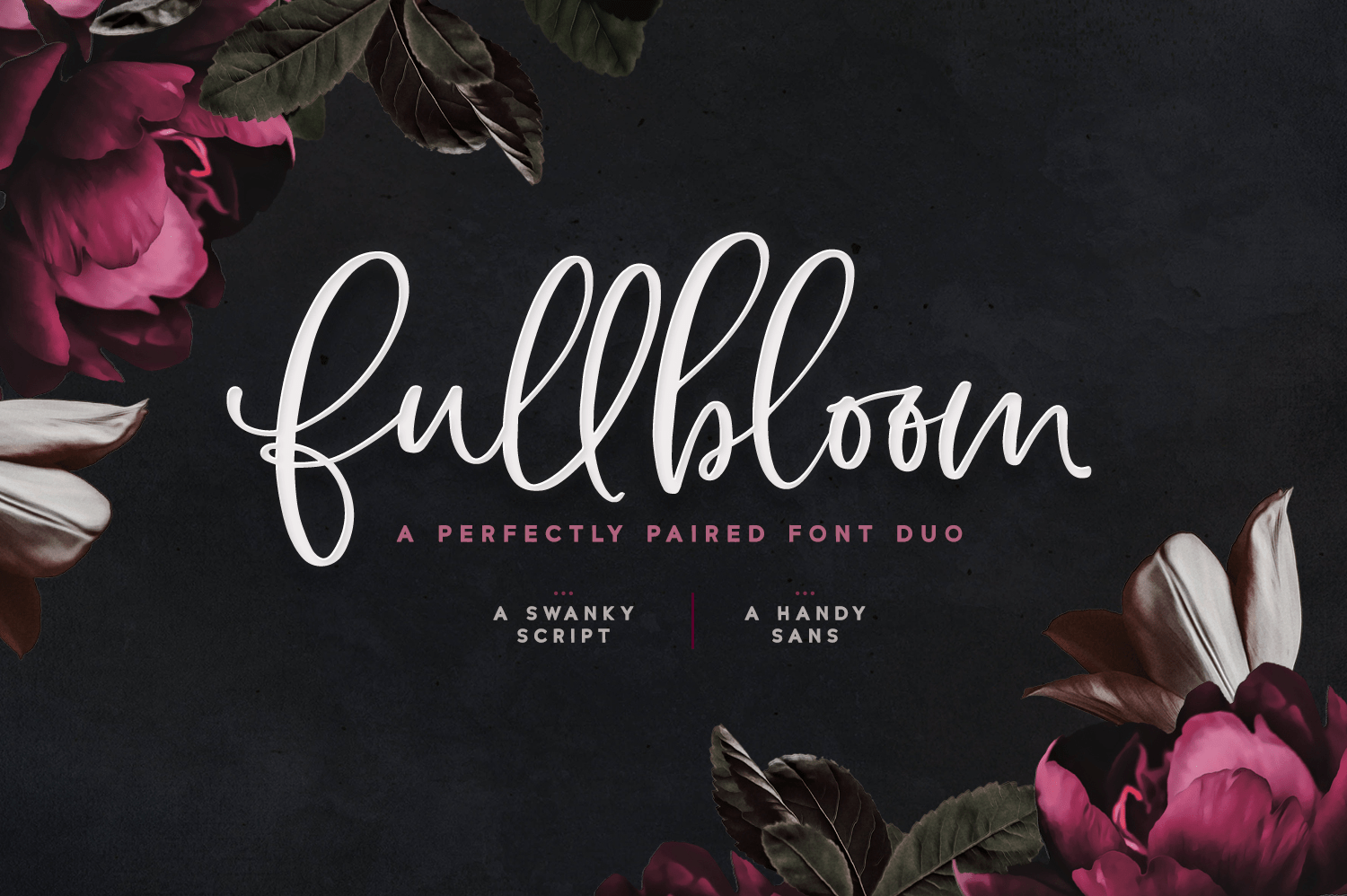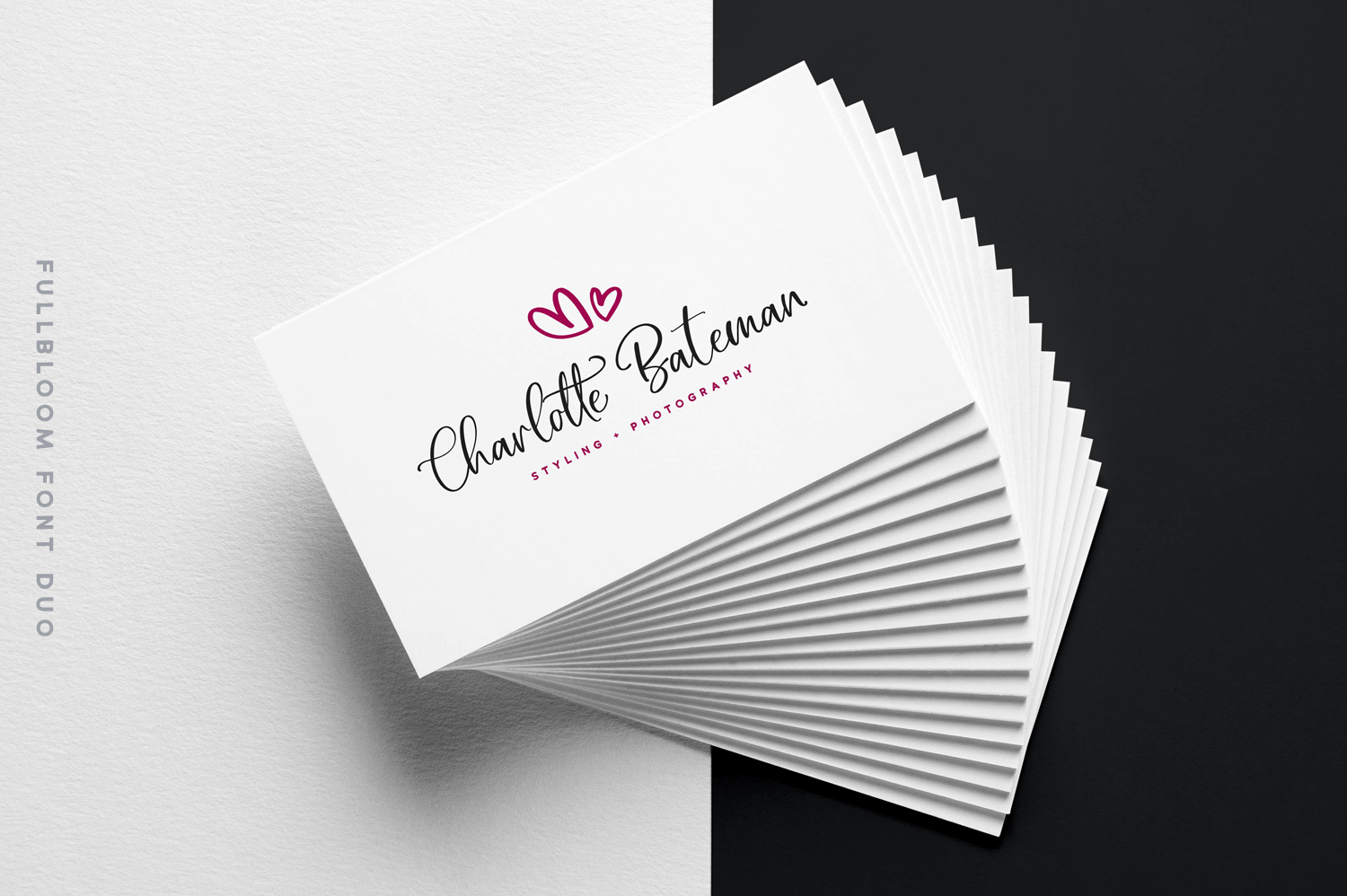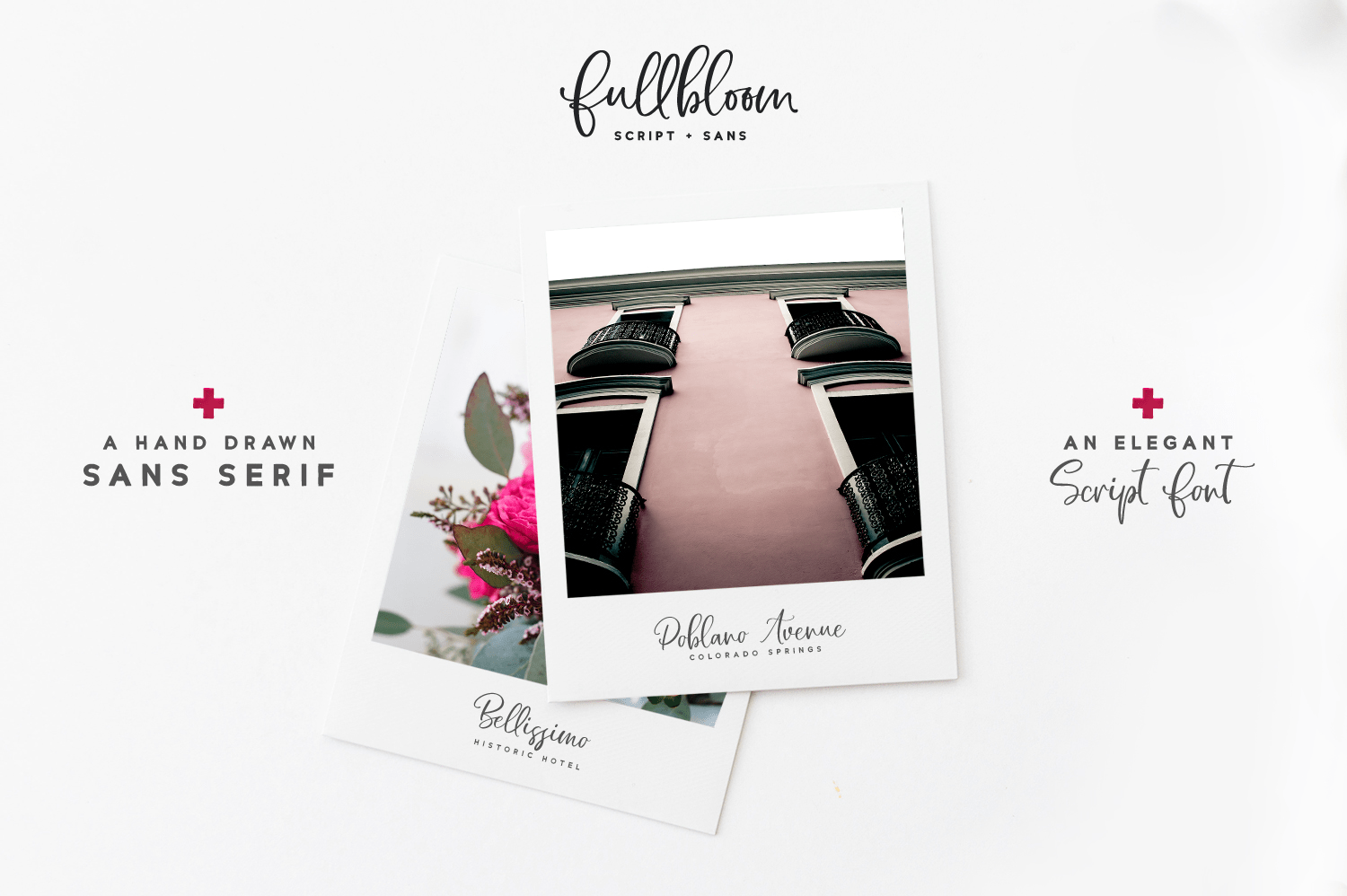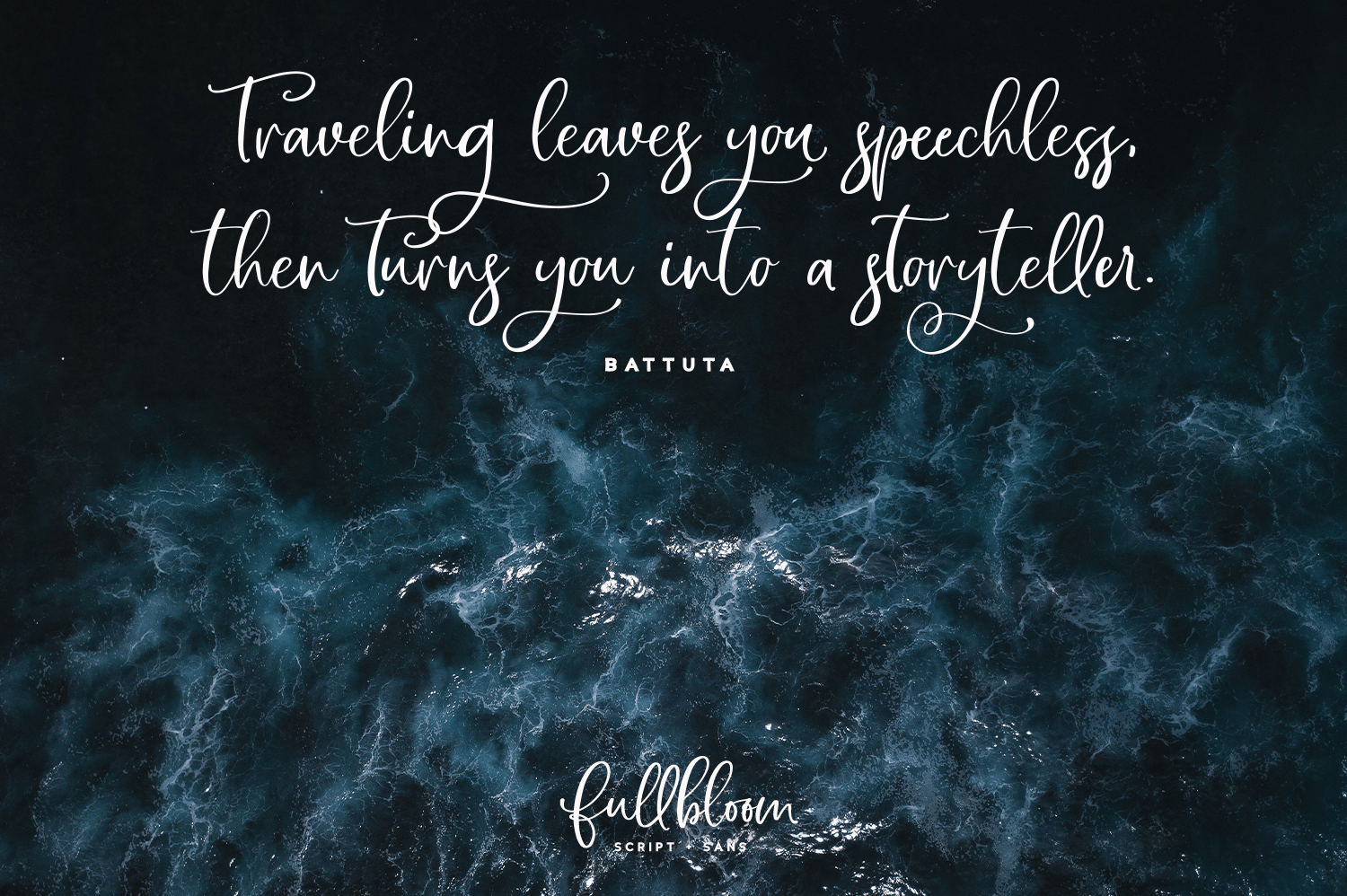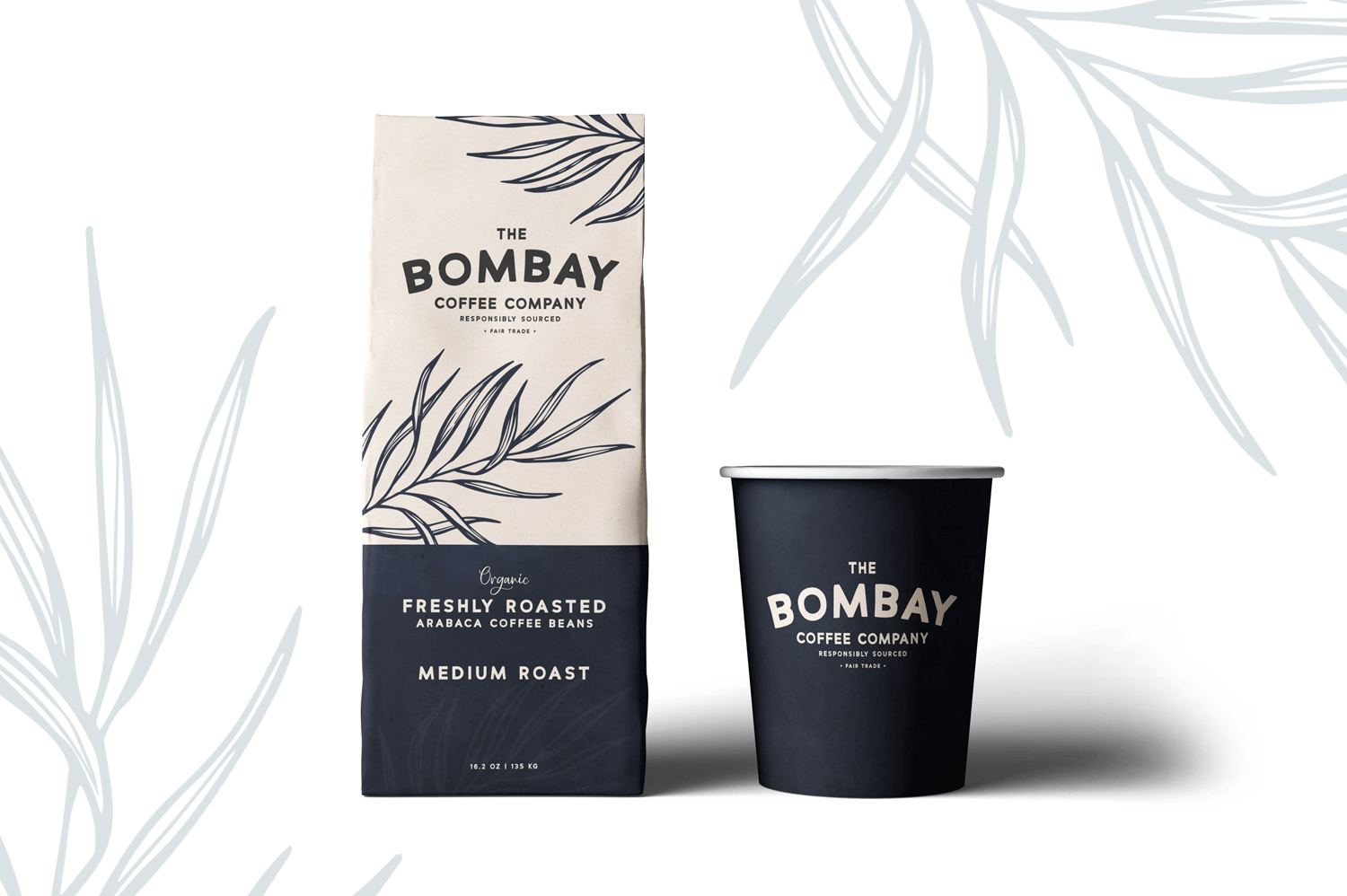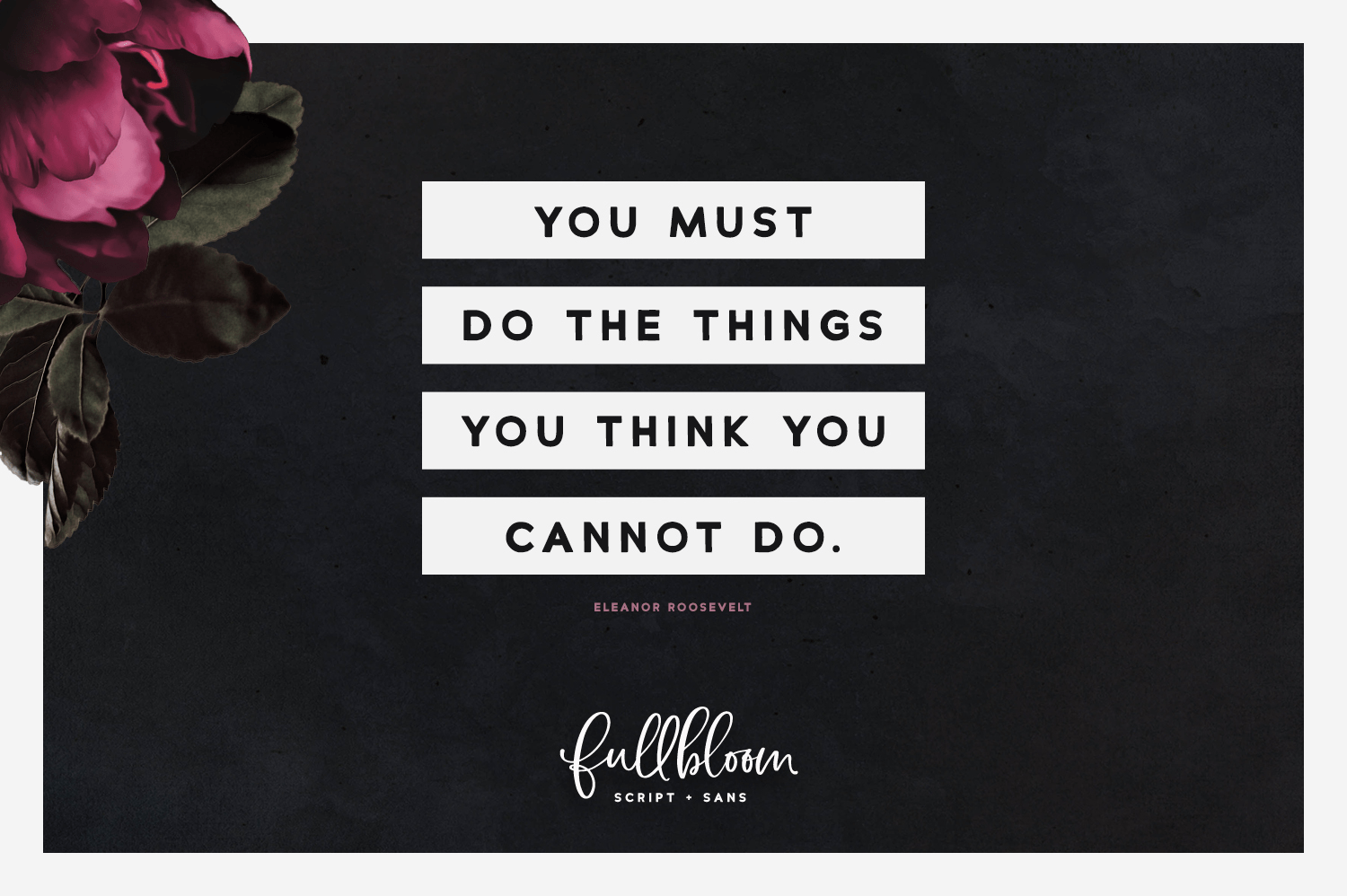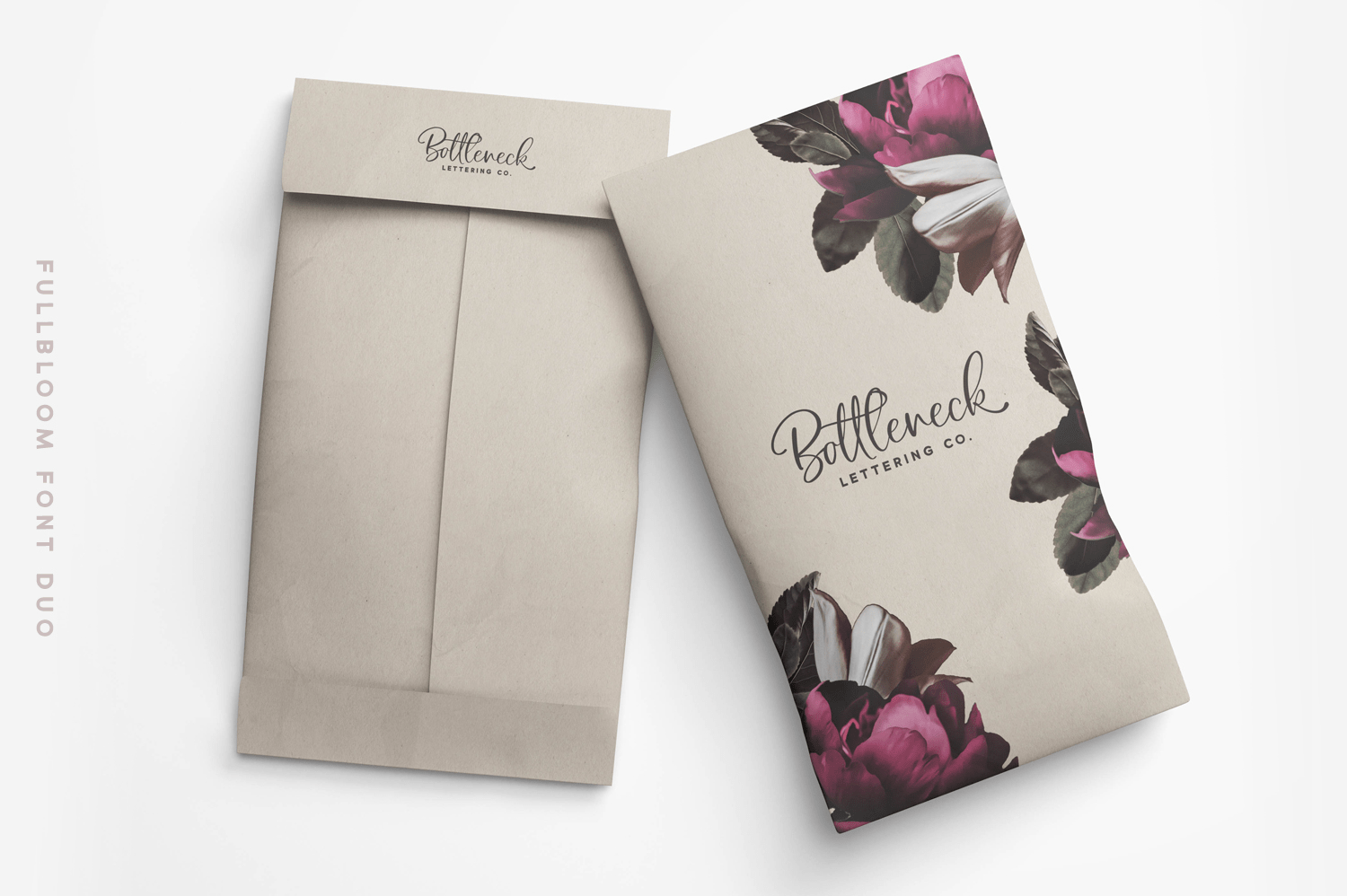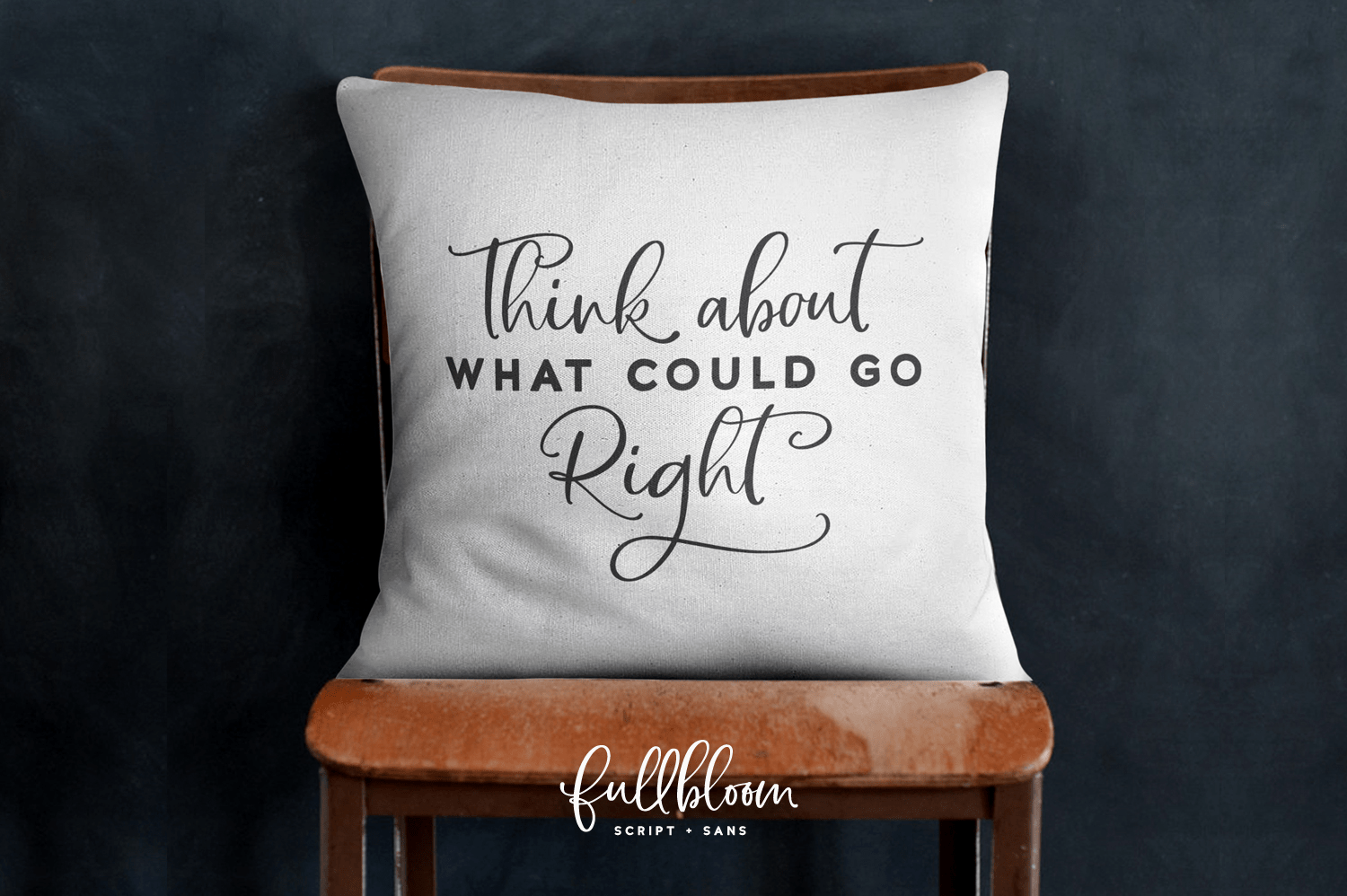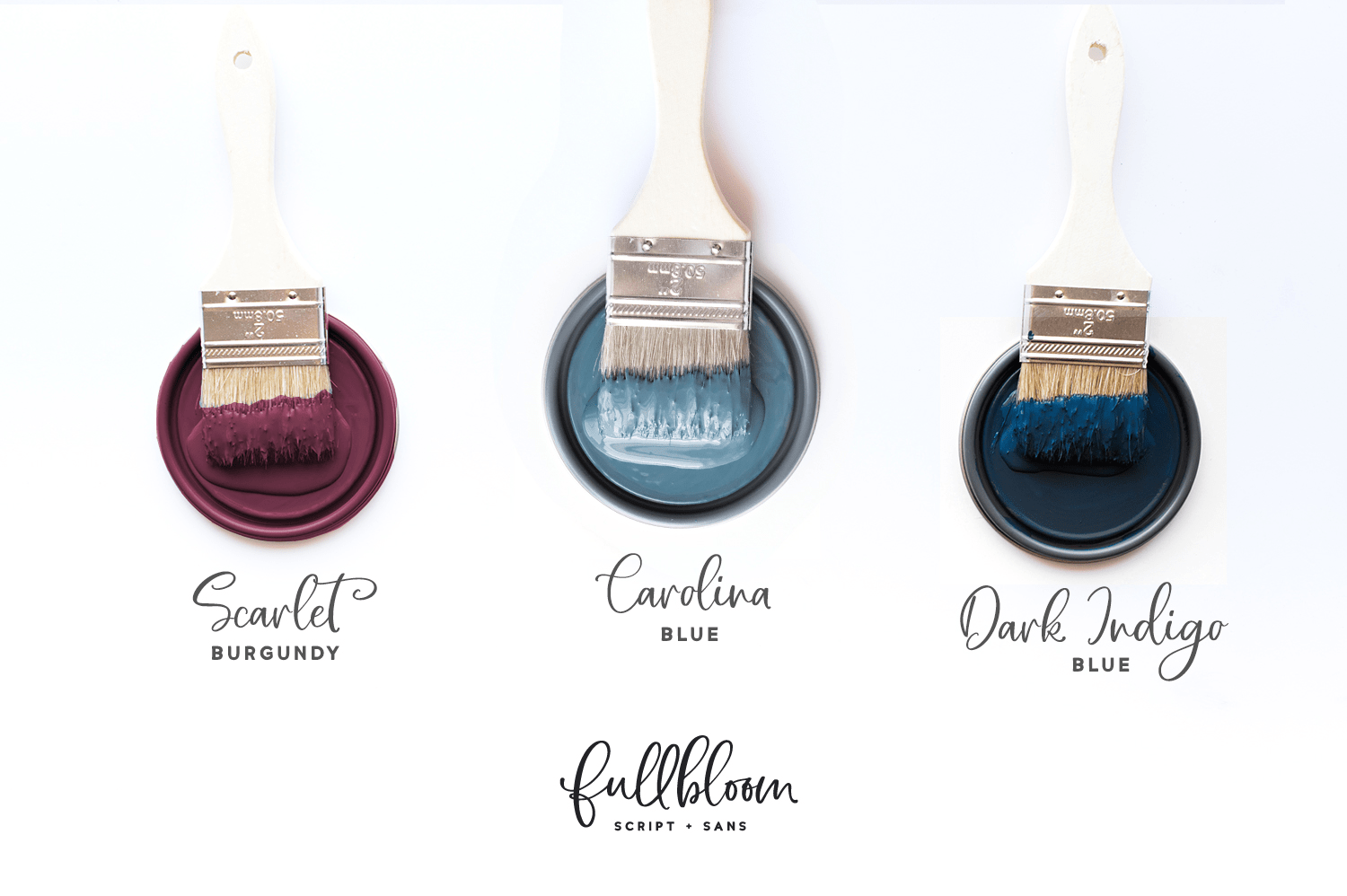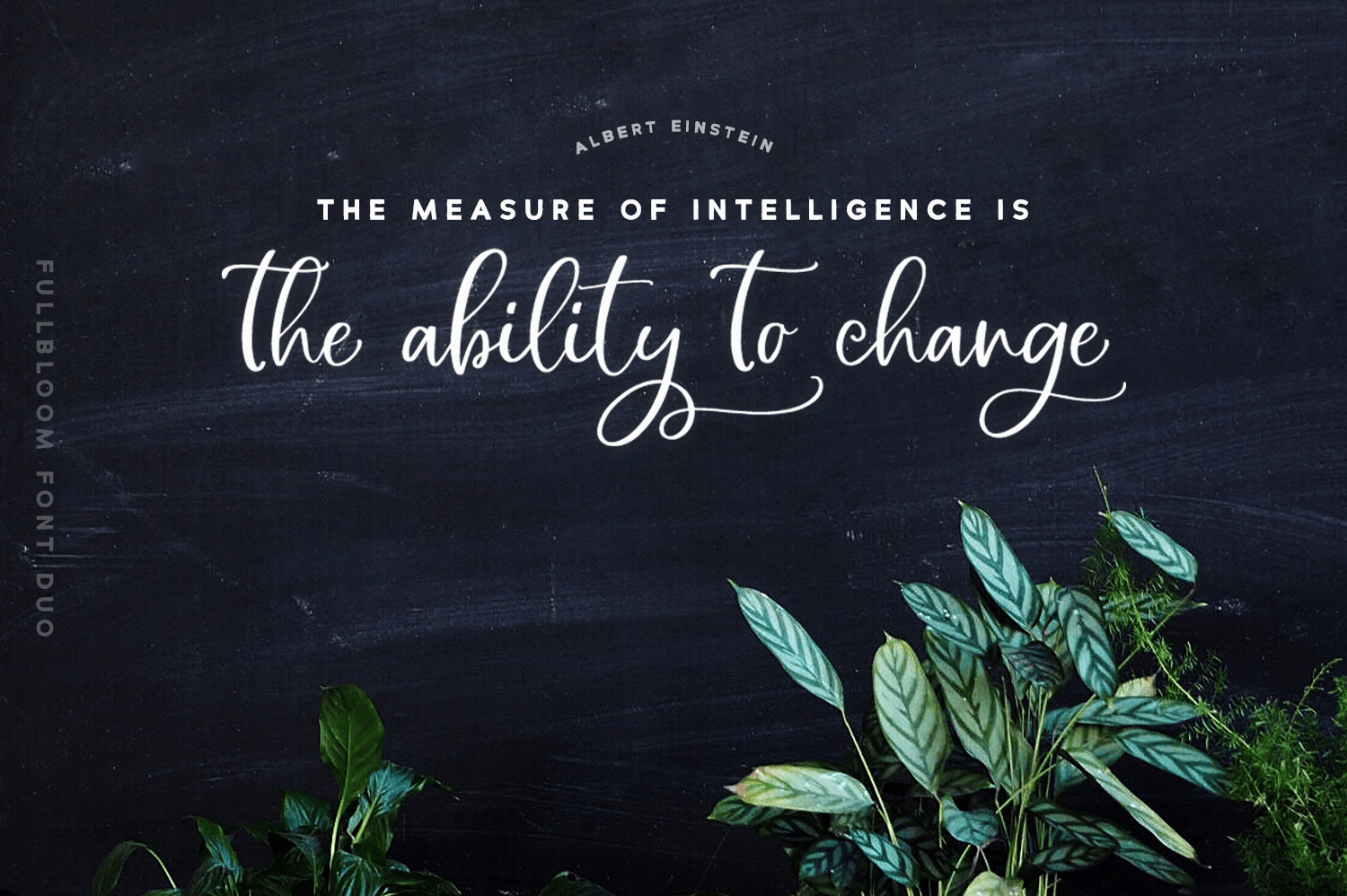
Fullbloom Font Duo
Font Family by Callie Rian & Co
Introducing Fullbloom Font Duo A smooth, charming, perfectly paired font duo, (based off my own handwriting), that's ideal for quotes, social media, branding, packaging, overlays and more! Use this elegant combo on everything from logo design to Instagram quotes.